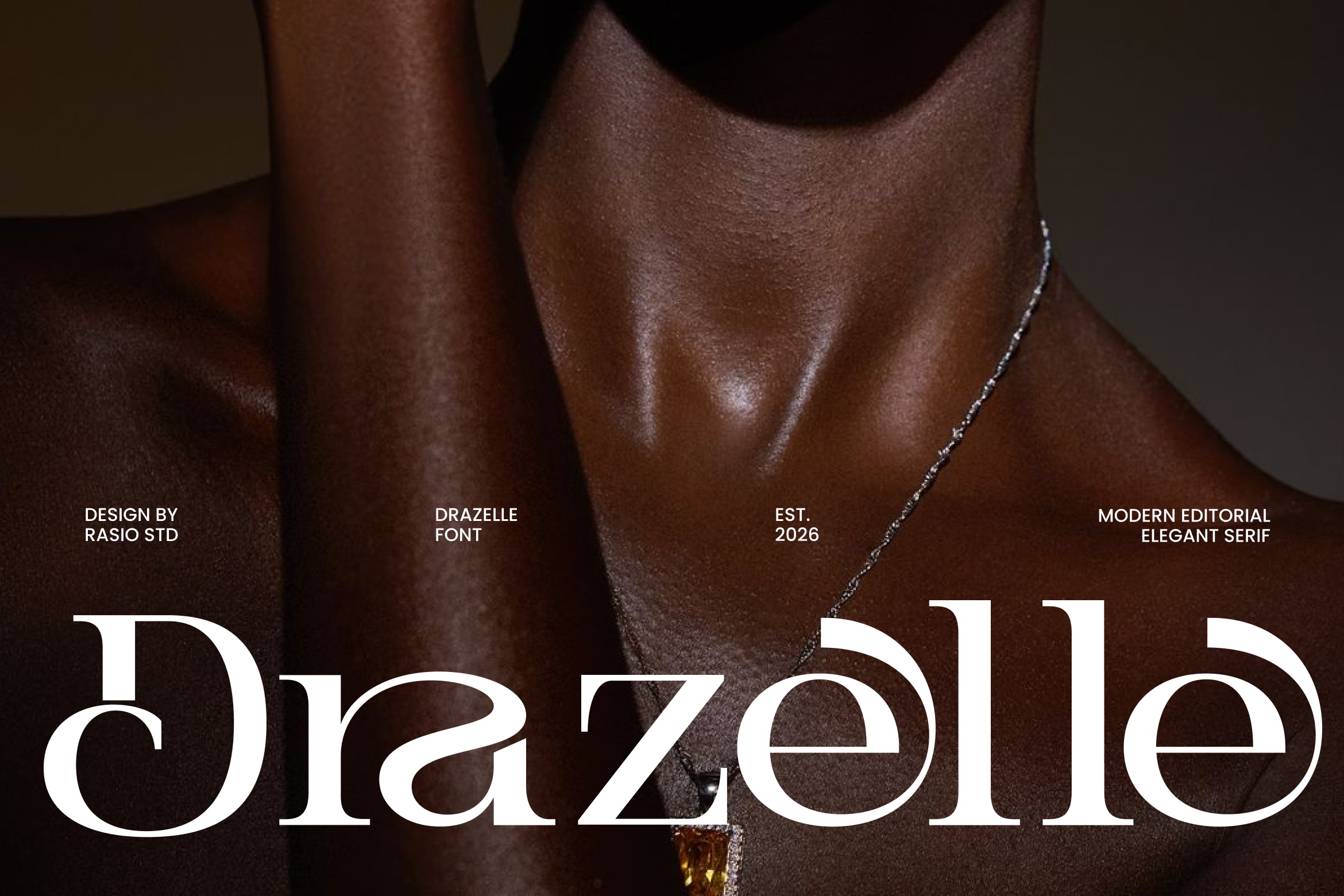
Drazelle Font
Drazelle is a high-contrast serif typeface that blends classic editorial style with modern precision. With balanced proportions, fine hairlines, and strong vertical stems, it has a luxurious look.
Sculpted curves, smooth stroke transitions, and generous spacing make this typeface a great choice for premium branding and high-end visual projects.
Its sophisticated serif design fits well with luxury brands, fashion campaigns, beauty and skincare packaging, jewelry branding, hotel visuals, magazine layouts, publishing, wedding stationery, and boutique logos.
Drazelle Serif Font